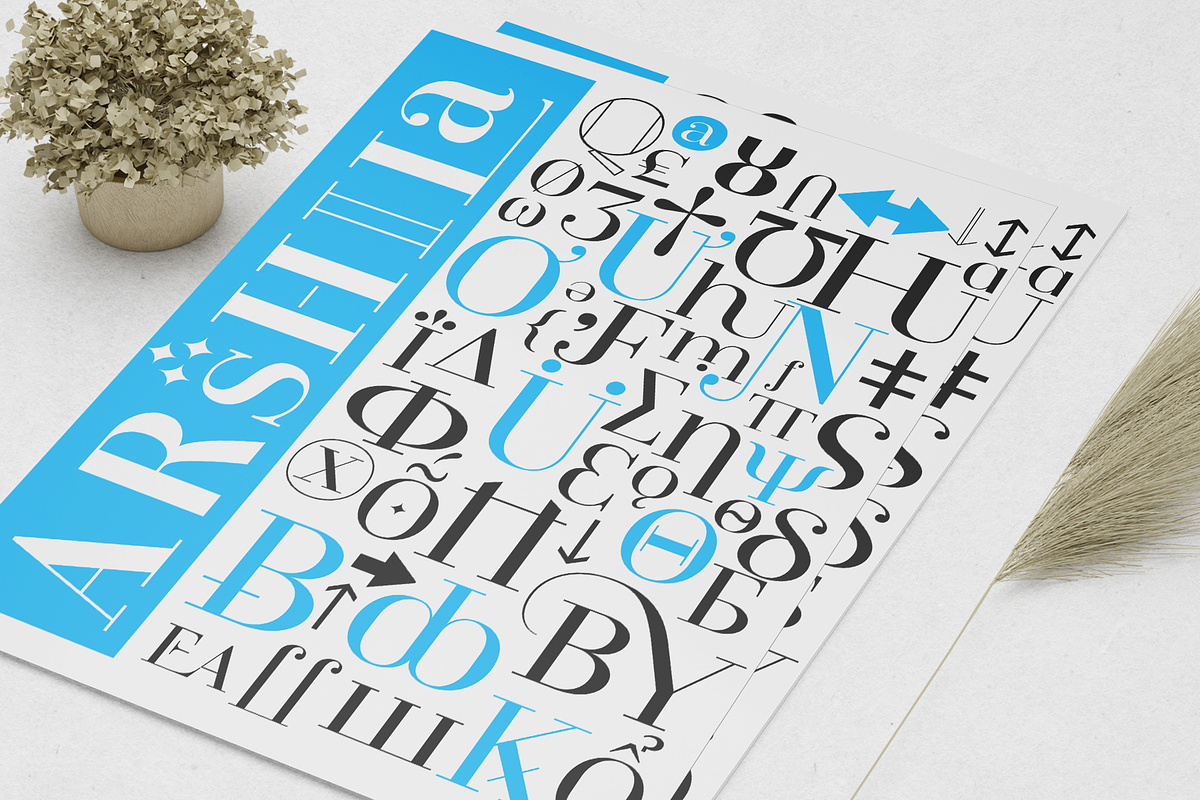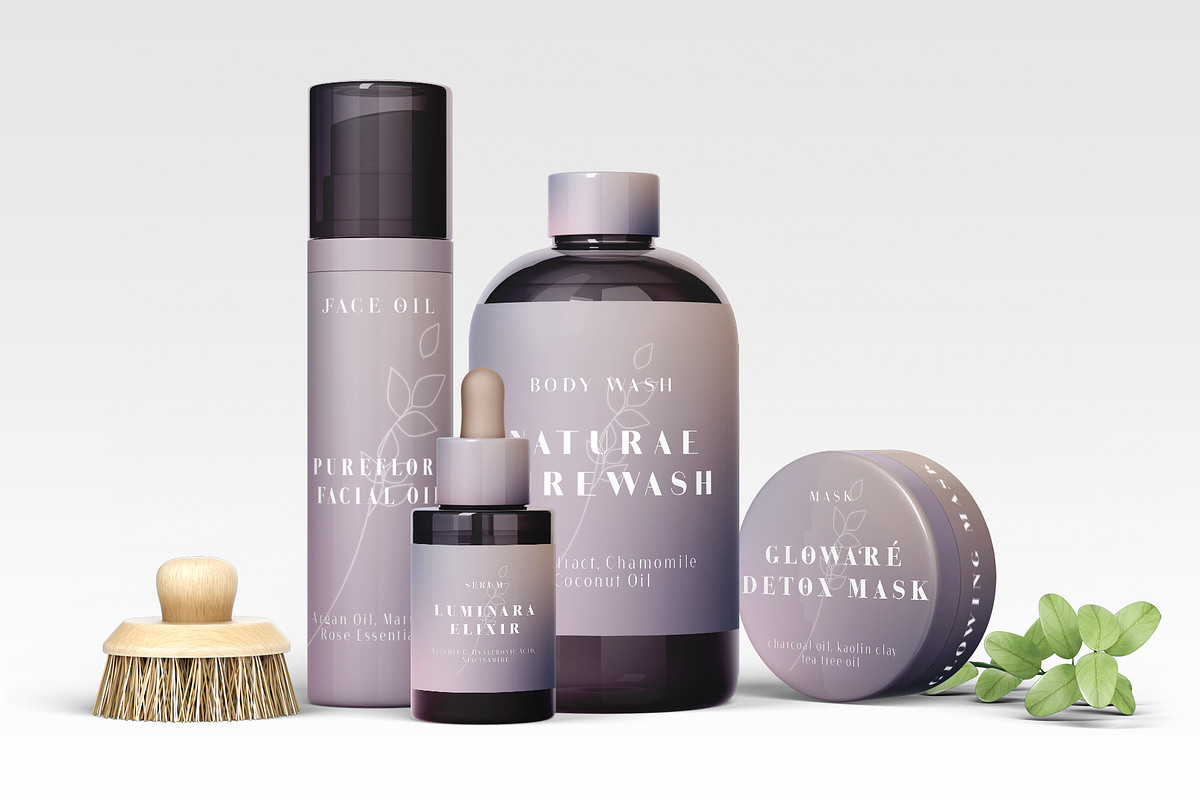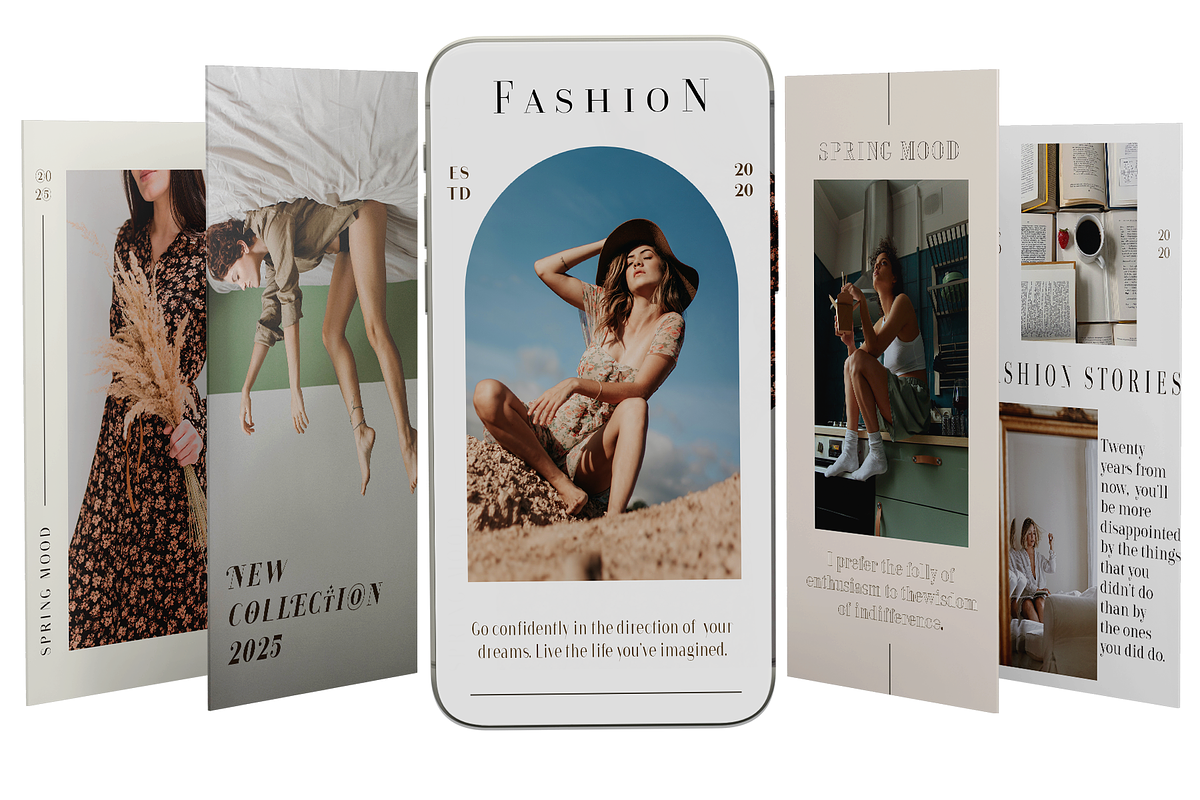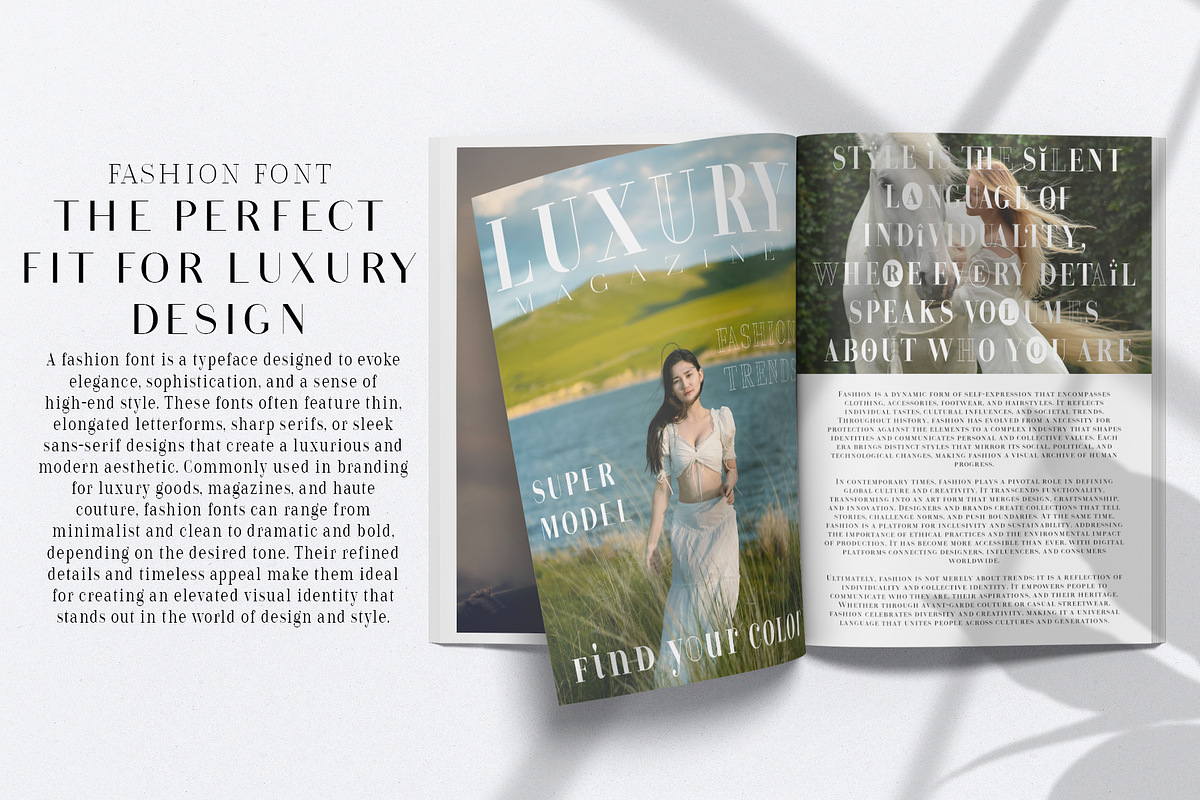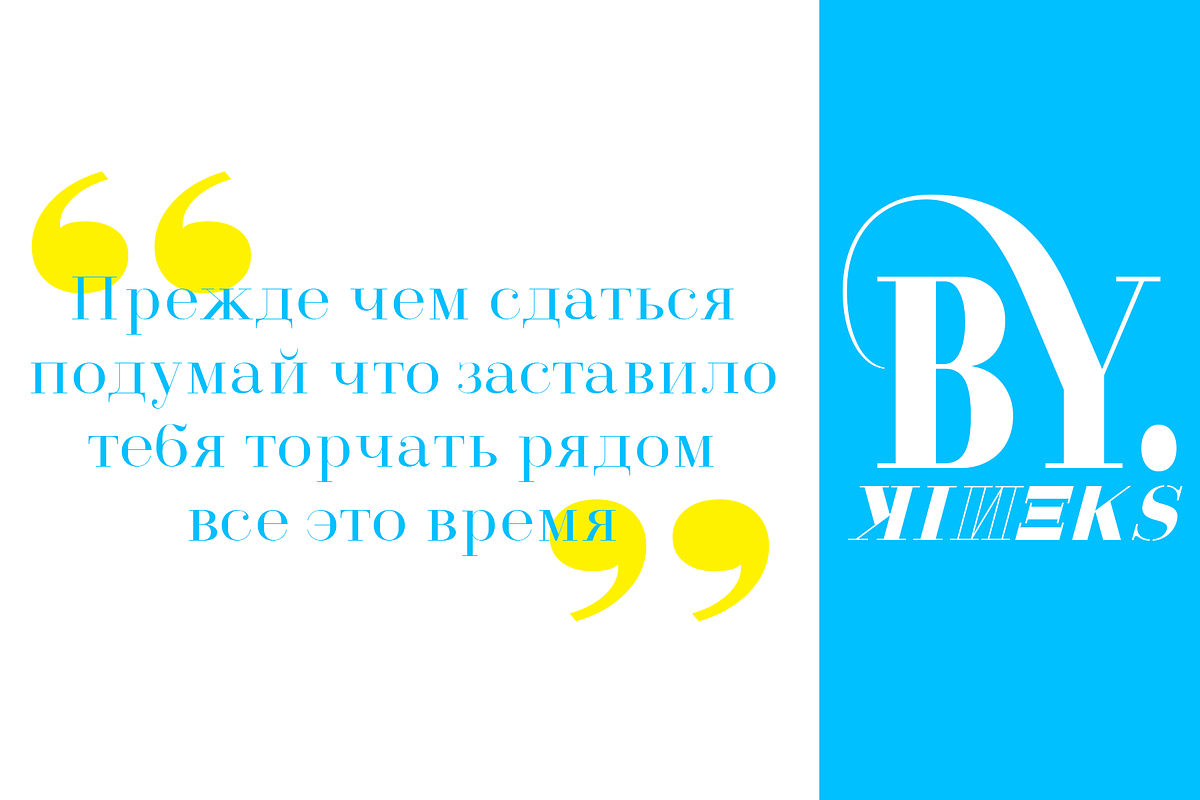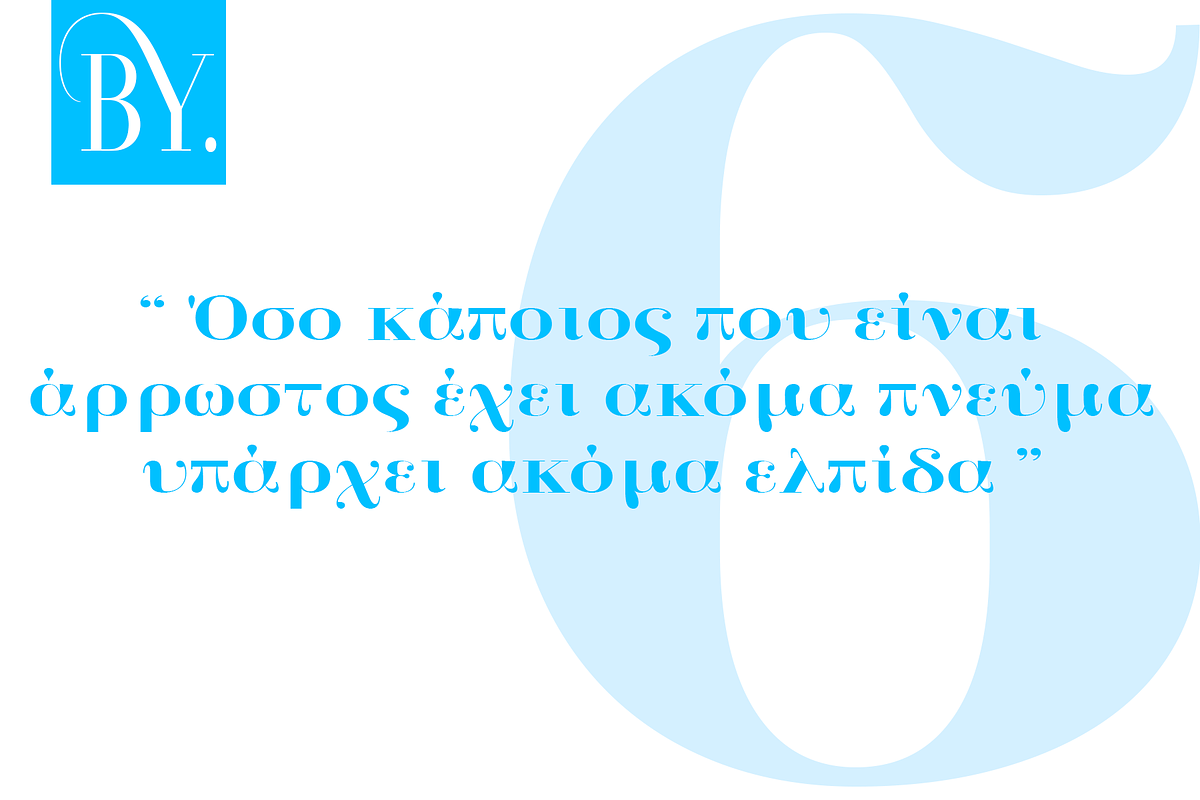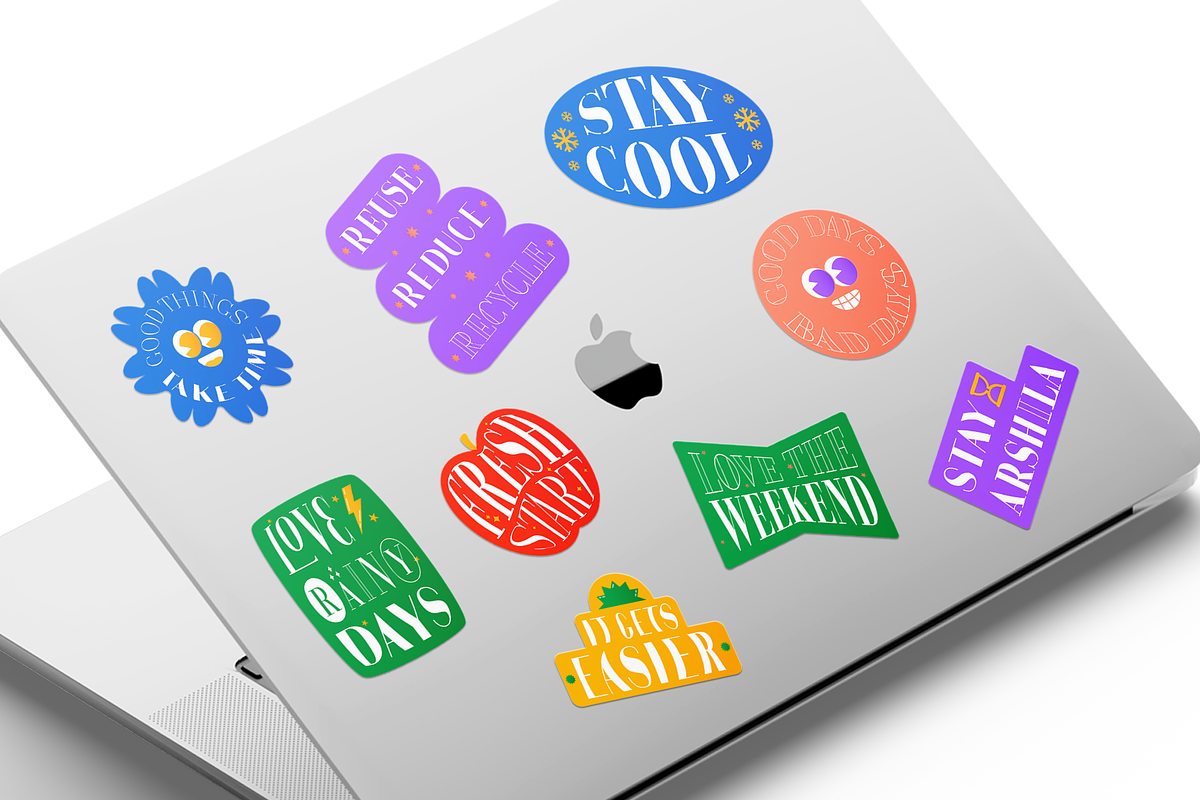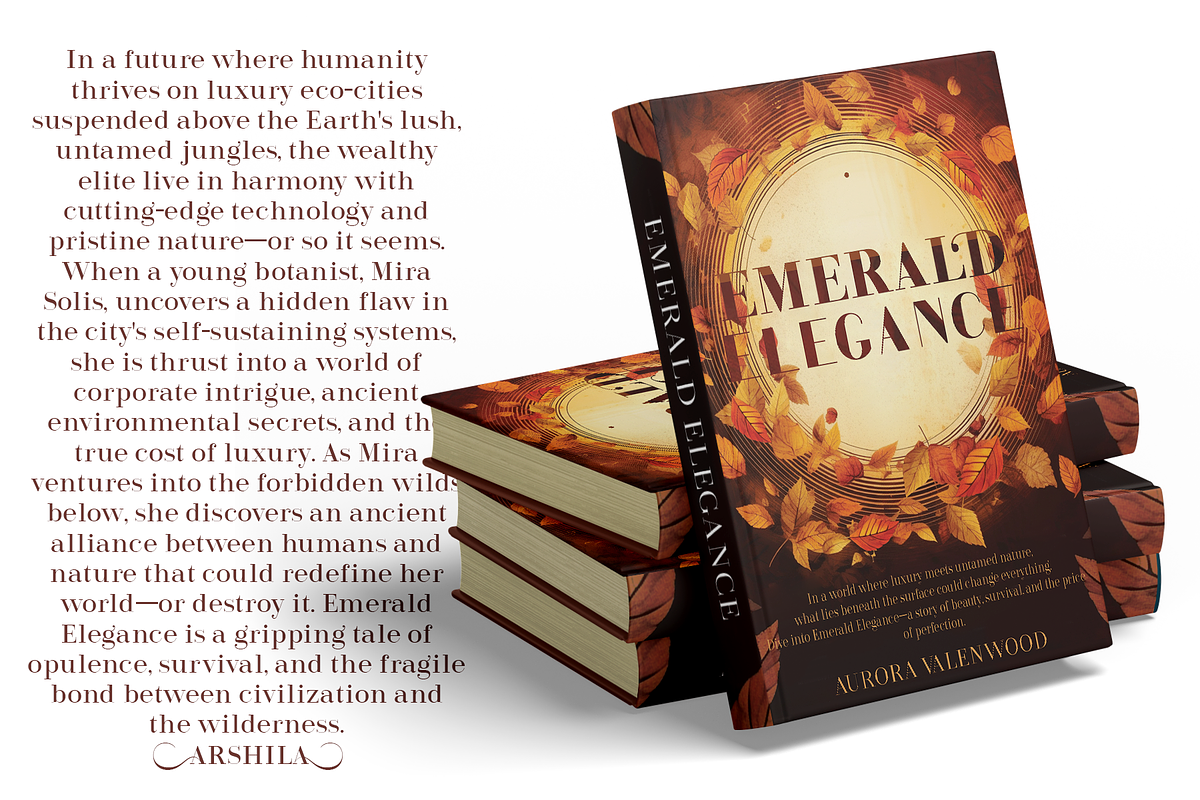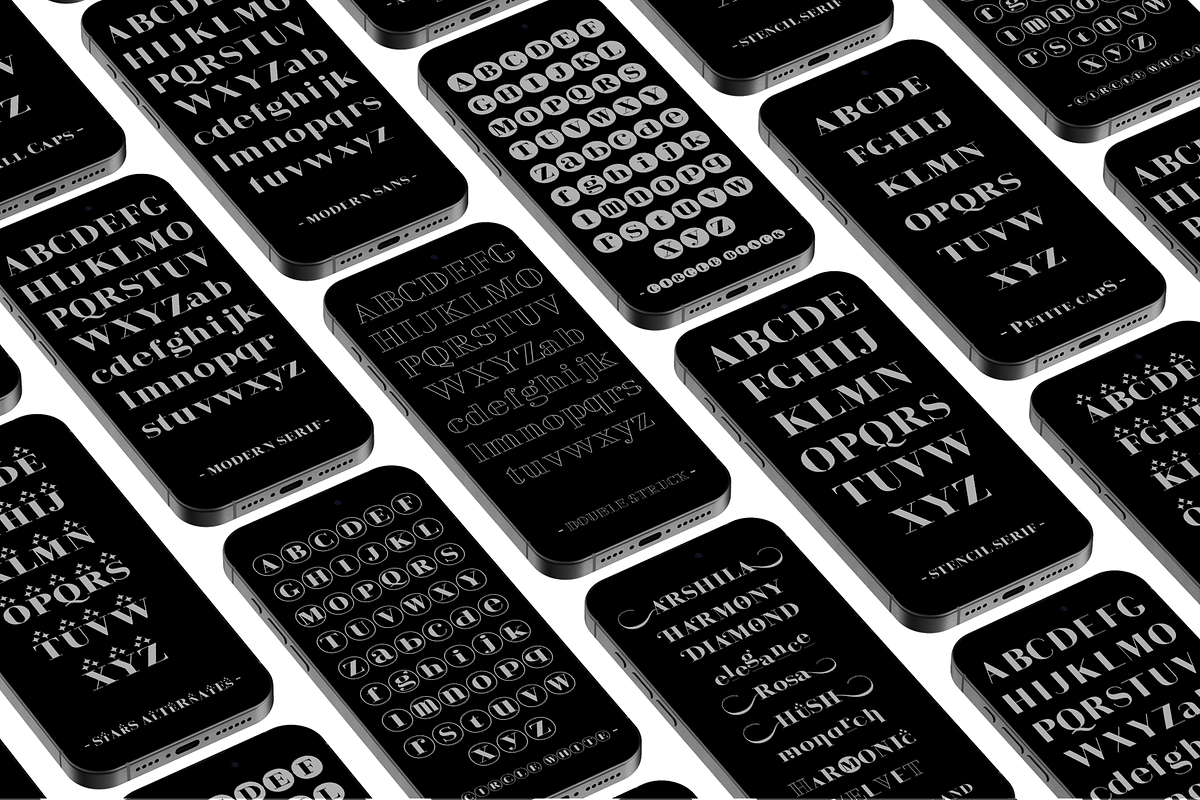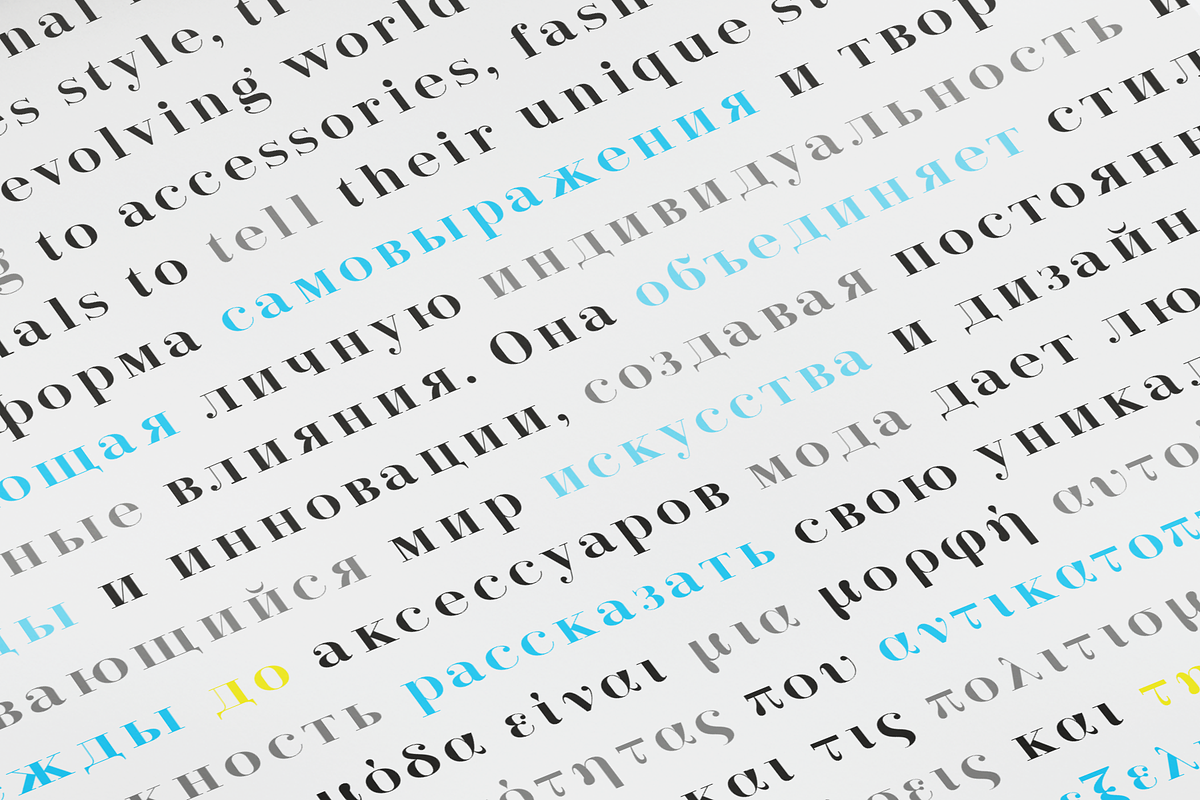
Arshila | Modern Serif Typeface
Arshila Typeface 2.0 – Redefining Modern Elegance
Introducing Arshila Typeface 2.0, the ultimate modern serif font Bykineks and designed by Dede Kurniawan. This refined typeface family combines timeless sophistication with cutting-edge features to enhance your creative projects.
What’s New in Arshila 2.0?
This latest version brings significant updates to elevate your design experience:
- Expanded Glyph Set: Over 2500 glyphs covering Latin Pro, Cyrillic, Greek support for 110+ languages.
- Enhanced OpenType Features: Now includes small caps, petite caps and stylistic alternates for unparalleled customization.
- New Design Elements: Added sans serif, double struck, stencil, circle, and circle black styles for unique visual expression.
- Optimized Aesthetics: Refined shapes and contours ensure clarity and elegance in every application.
Versatility for All Projects
Arshila 2.0 is ideal for branding, fashion, wedding invitations, skincare packaging, social media graphics, stickers, book covers, and more. Its adaptable style makes it a go-to choice for both digital and print mediums.
Why Choose Arshila 2.0?
This version builds upon the solid foundation of 1.0 with:
- A Larger Glyph Library: From 700+ to 2500 glyphs for greater creative flexibility.
- Expanded Language Support : Latin Pro, Cyrillic, Greek
- New OpenType Features: Adds features like small caps, petite caps, and stylistic alternates for unparalleled customization.
- Fresh Visual Styles: Introduces double struck, stencil, sans serif, circle, and circleblack styles to expand design possibilities.
Elevate Your Designs
Whether you're designing a luxury skincare label, an elegant wedding invitation, or high-impact social media content, Arshila Typeface 2.0 delivers the modern sophistication your projects demand.
Step into the future of typography with Arshila 2.0 and let your designs stand out effortlessly.